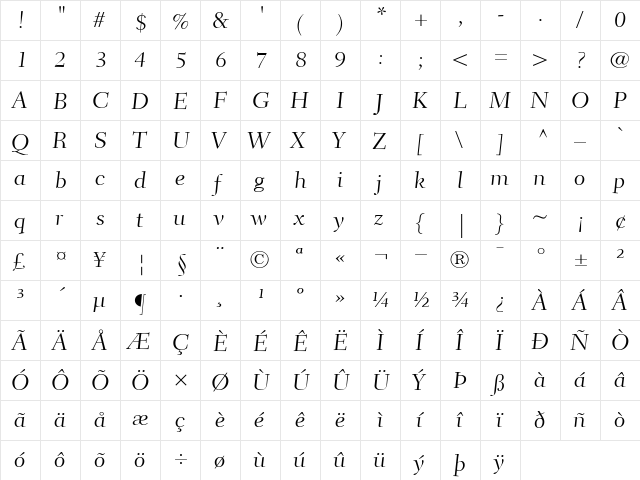
FairfieldLH45Caption-Light LightItalic Font Preview
Design Context for FairfieldLH45Caption-Light Typeface
FairfieldLH45Caption-Light takes a measured approach to typography — its balanced proportions and neutral character make it a reliable workhorse for both digital and print work. The slanted form adds forward momentum and visual energy. The delicate stroke weight brings airiness and refinement to layouts.
Pro Tip: Try FairfieldLH45Caption-Light for annotation and caption copy alongside an upright companion — the contrast in angle creates a dynamic but ordered typographic system.